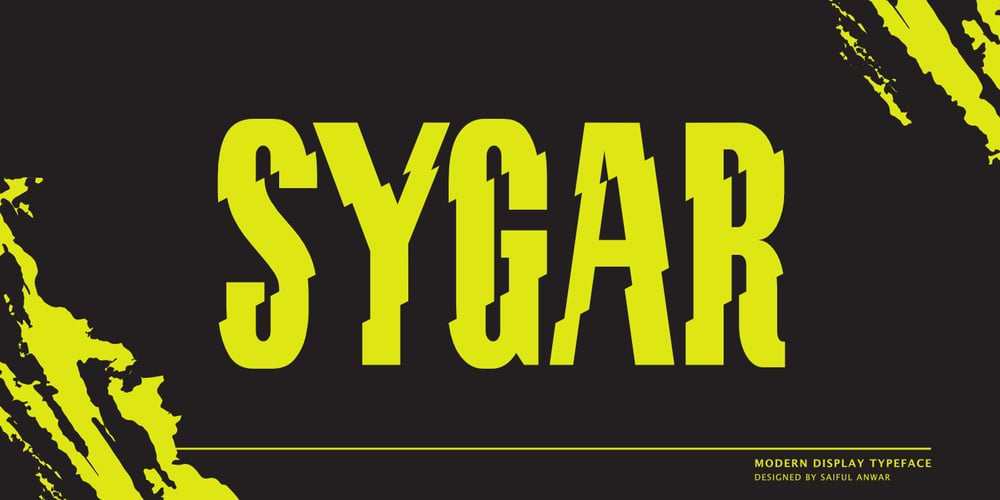
Sygar
Sygar font
Sygar Font Family was designed by Saiful Anwar and published by Sealoung. Sygar contains 1 styles and family package options. Introducing Sygar, a modern display font that embodies elegance and uniqueness. With its sleek lines and stylish curves, Sygar adds a touch of sophistication to any design. Each character is meticulously crafted to create a harmonious blend of modernity and style, making it perfect for branding, headlines, and editorial design. Sygar is not just a font; it’s a statement of elegance and class.SYGAR Modern Display Font ready with: Creative characters prepared to get best results Preview as a inspirations that you can do with SYGAR font Ready with All Uppercase characters Wish you enjoy our font. 🙂